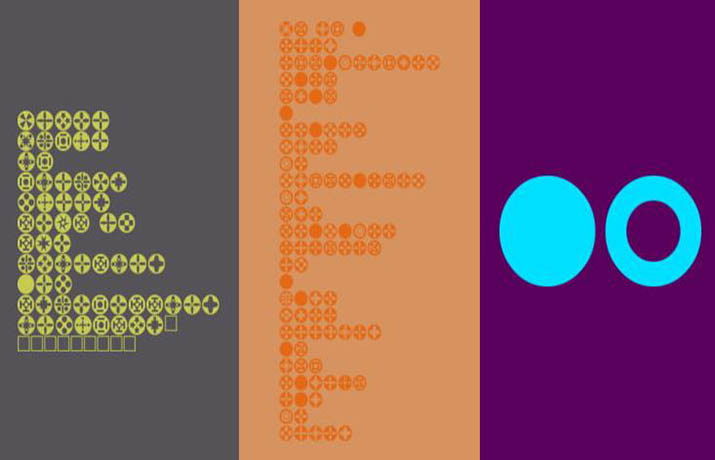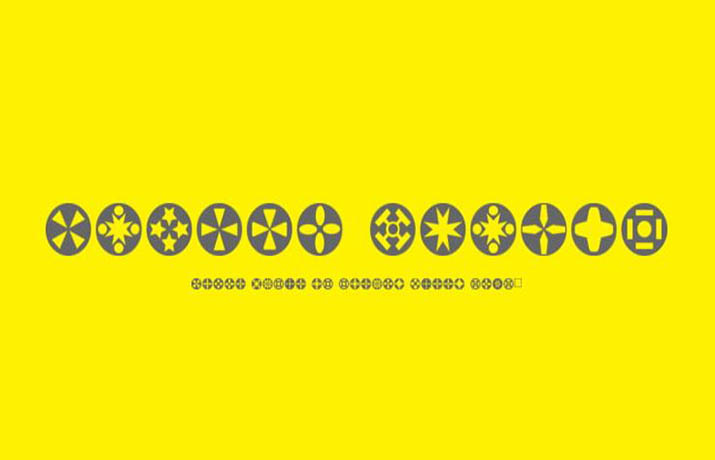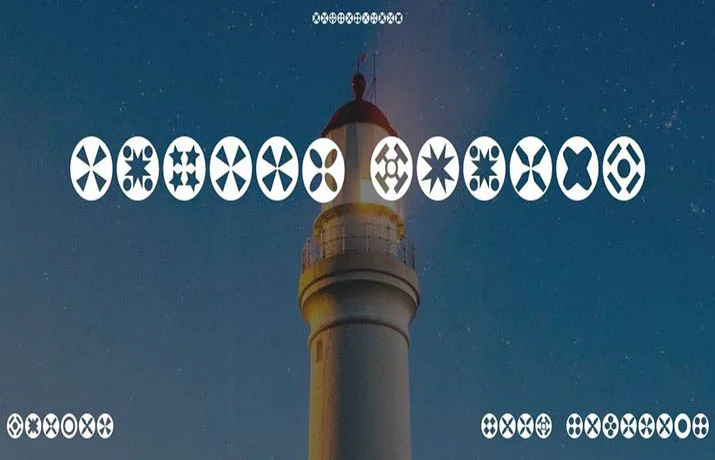
Circle Things Font Free Download – [By Fonts & Things]
Circle Things Font is a dingbat typeface that comes with circular shapes. It was designed and published by Fonts & Things.
This font family comes in single weight that possesses True Type file format. This single style contains 56 unique glyphs. Moreover, it also supports 34 multilingual languages.
It contains some dingbat shapes including a border, frame, and bullet points, which adds a remarkable touch to the designs. So these dingbats can easily be useable with regular texture.
With many features, this font is perfect for albums, greeting cards, logos, internet shop presentations, phrases, gift shops, social media posts, seasonal blog posts, and more.
- This unique font is mostly used for game graphics and various game titling. You can also use this clean font for other designs of your interest like product packaging, social media posters, banners, headers, titles, flyers, t-shirt designs, comic covers, book covers, and many more.
What is Circle Things Font?
Circle Things Font is a dingbat typeface that comes with circular shapes. It was designed and published by Fonts & Things.